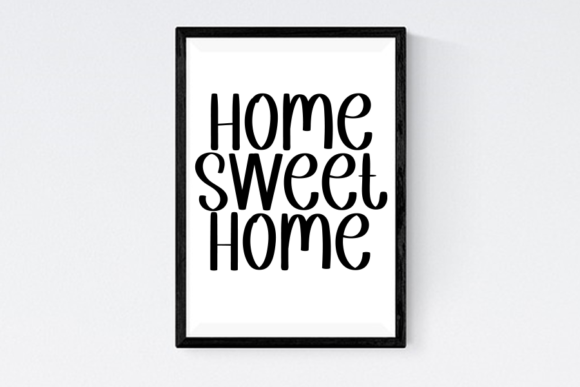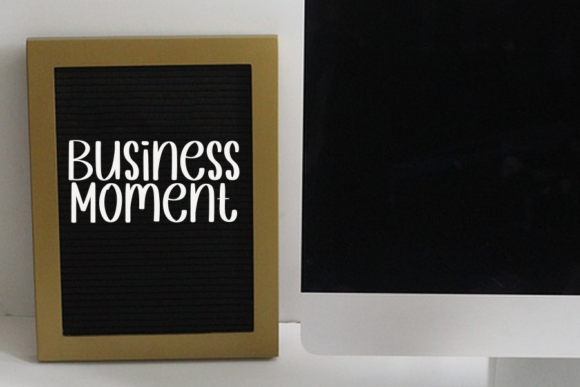
Beautiful Christmas Font
db-ku.com - Script & Handwritten -- Beautiful Christmas is a magical handwritten font carefully created with a touch of elegance. Whether you’re looking for fonts for Instagram or calligraphy scripts for DIY projects, this font will turn any creative idea into a true piece of art!